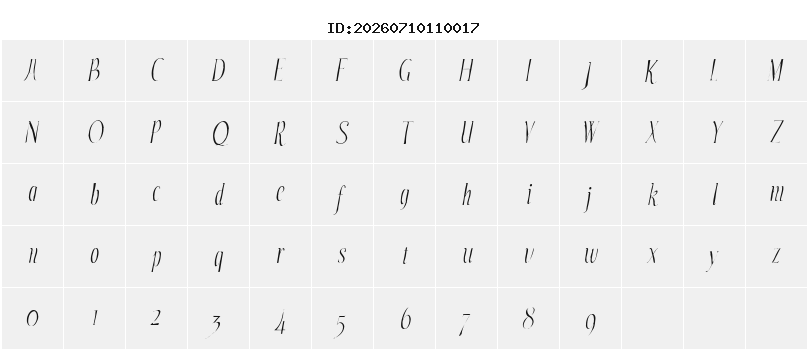
Echelon Gaunt Preview
• Font Name: Echelon Gaunt
• Font ID: RayLarabie: Echelon Gaunt Italic: 2000
• Full Font Name: Echelon Gaunt Italic
• Version: Version 1.0; 2000; initial release
• PostScript Name: EchelonGaunt-Italic
• Character Count: 173
• Designer: Ray Larabie ::: Larabie Fonts
About Echelon Gaunt.ttf
Echelon Gaunt.ttf is a modern, elegant sans-serif font designed for ultimate readability and visual harmony. Perfect for branding, headlines, web design, and print materials.